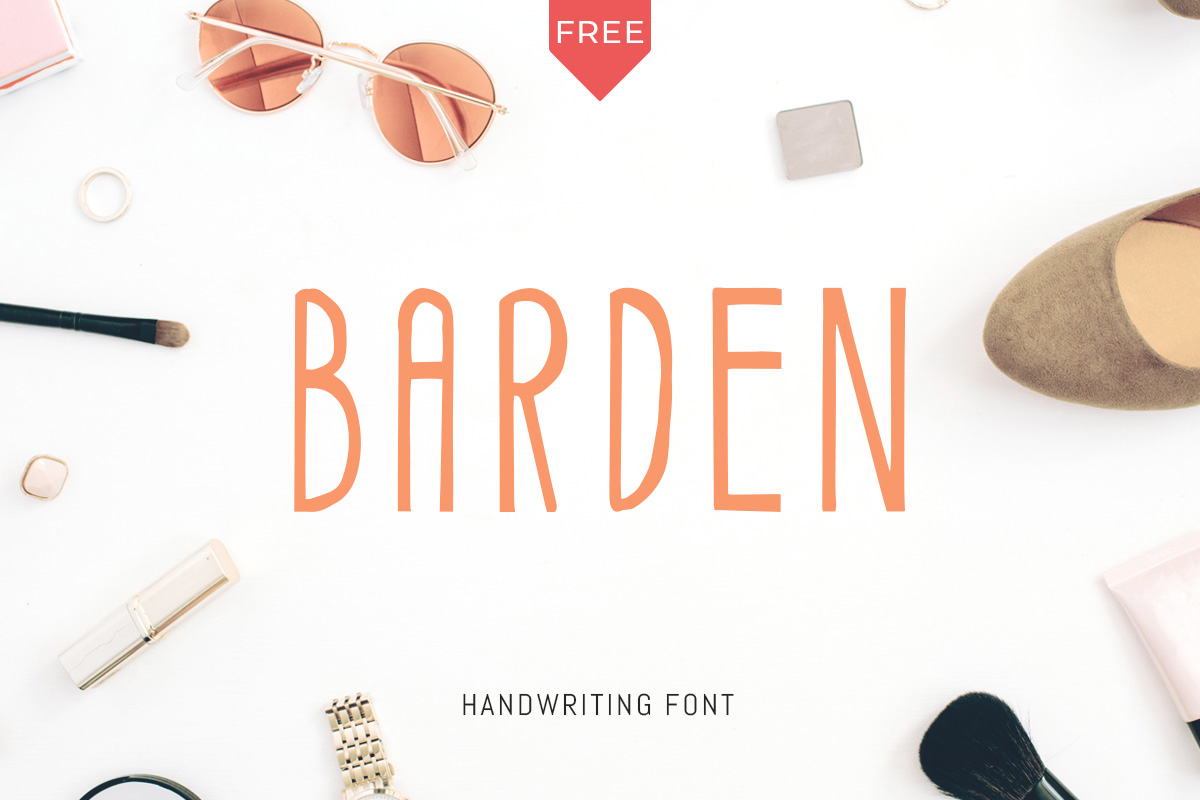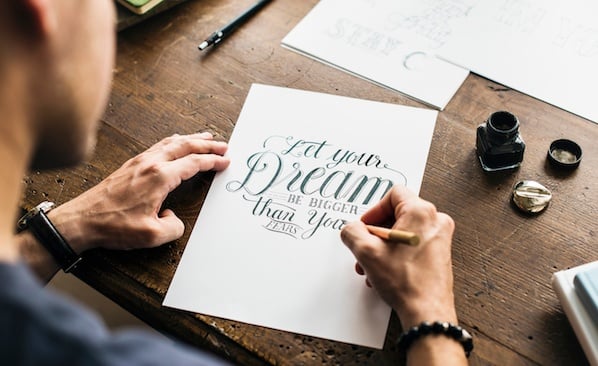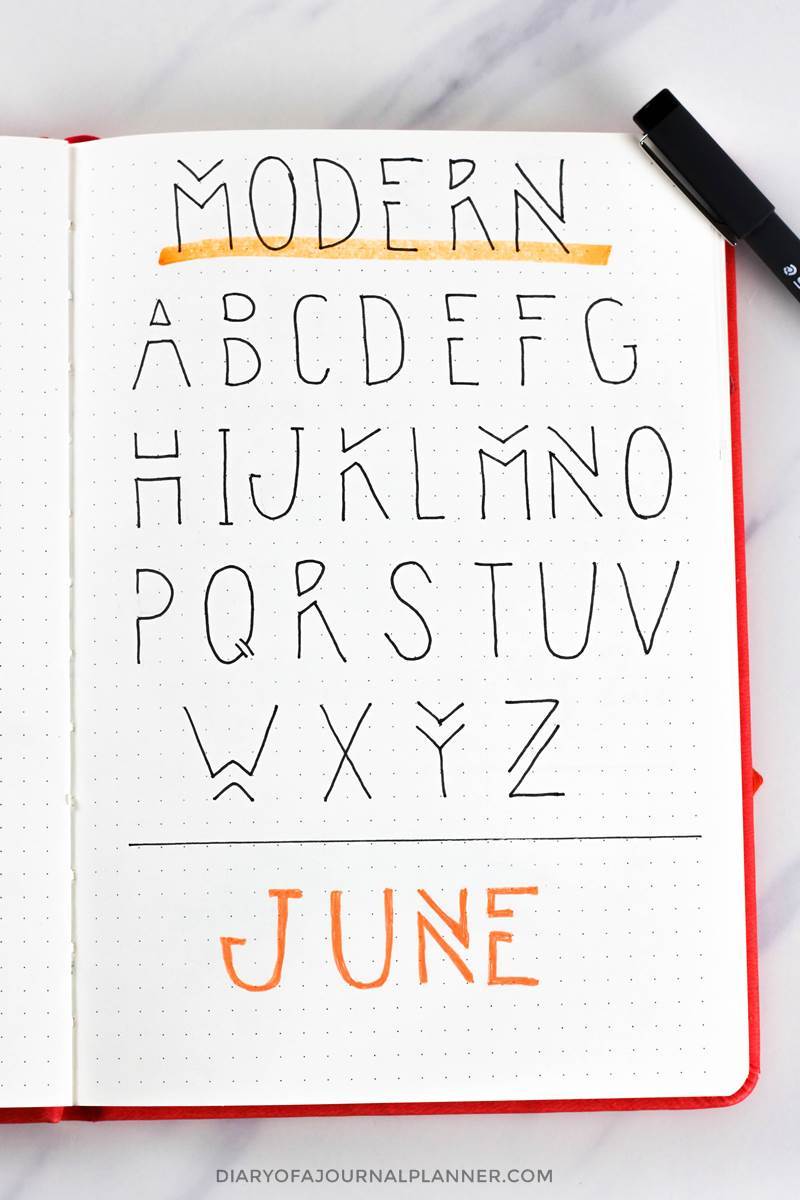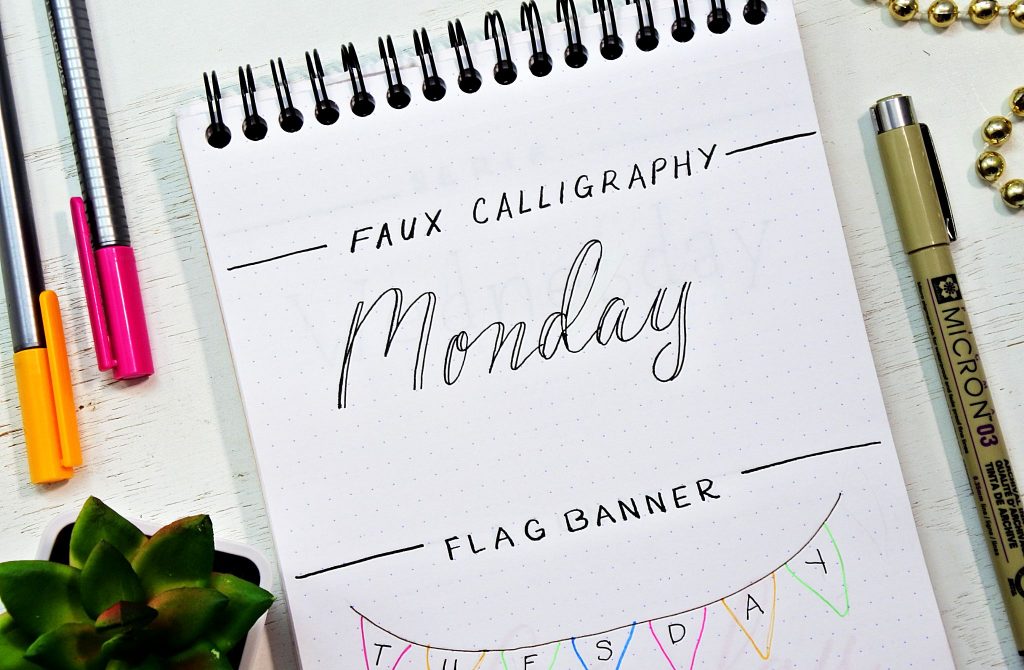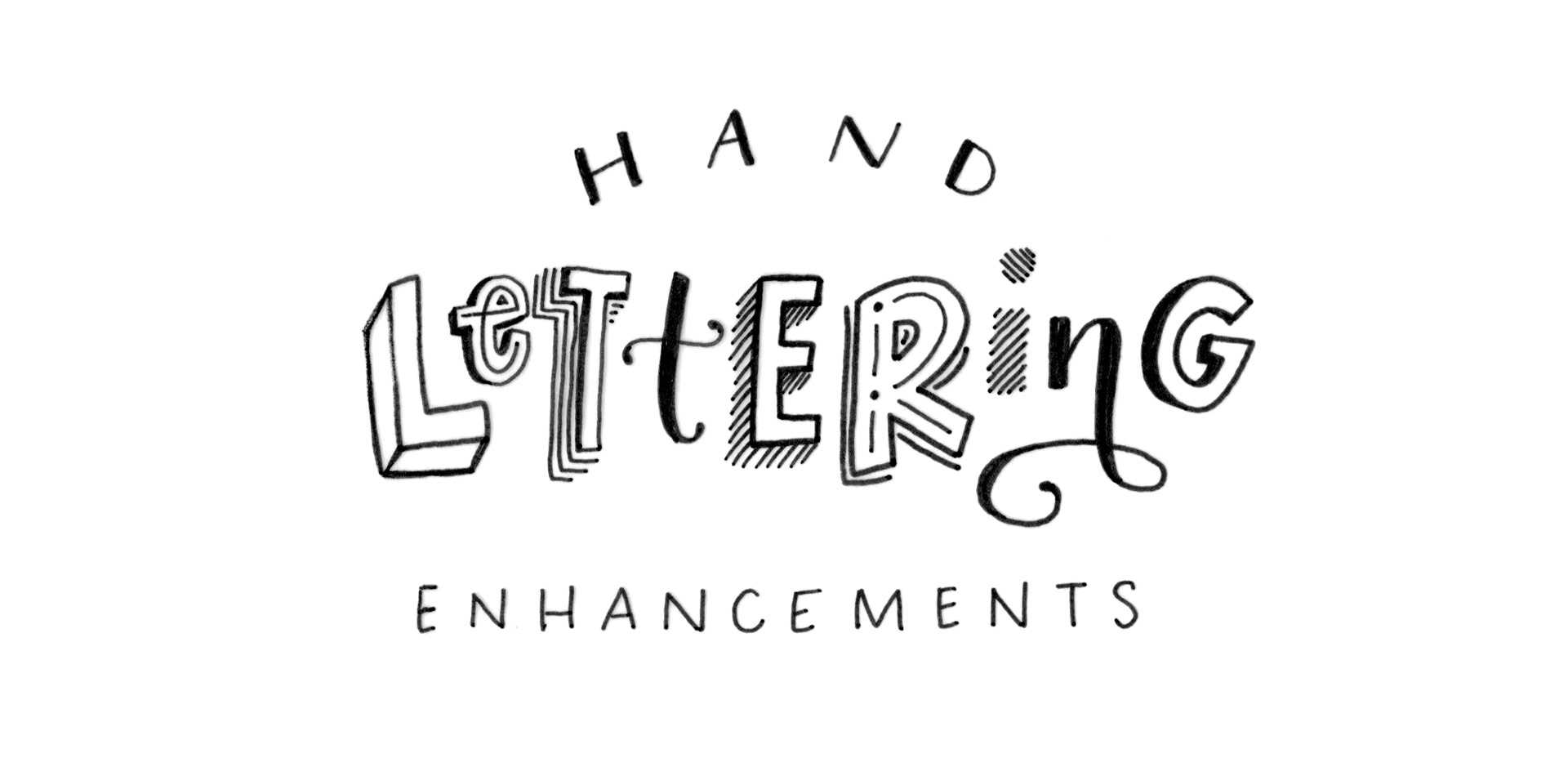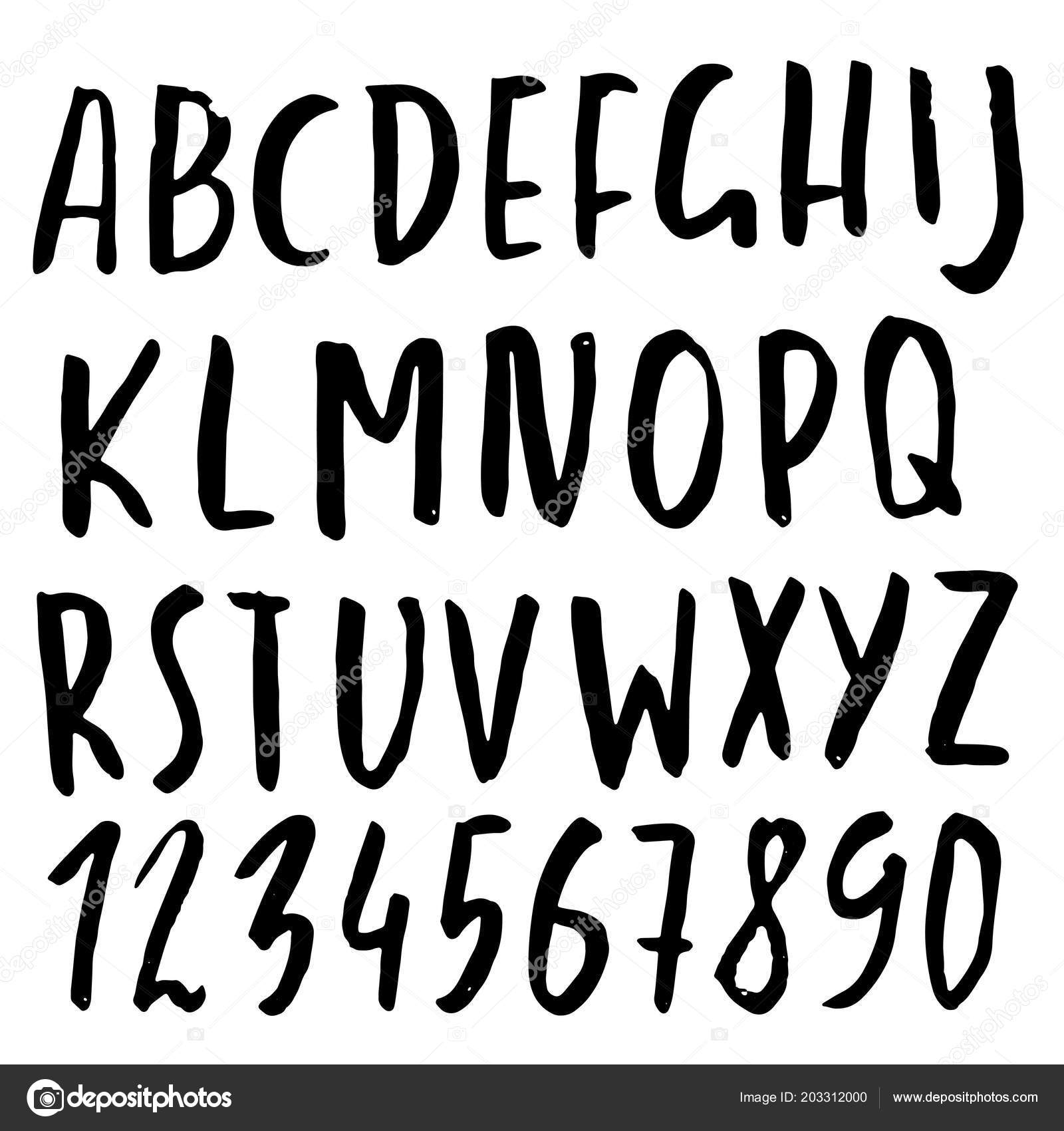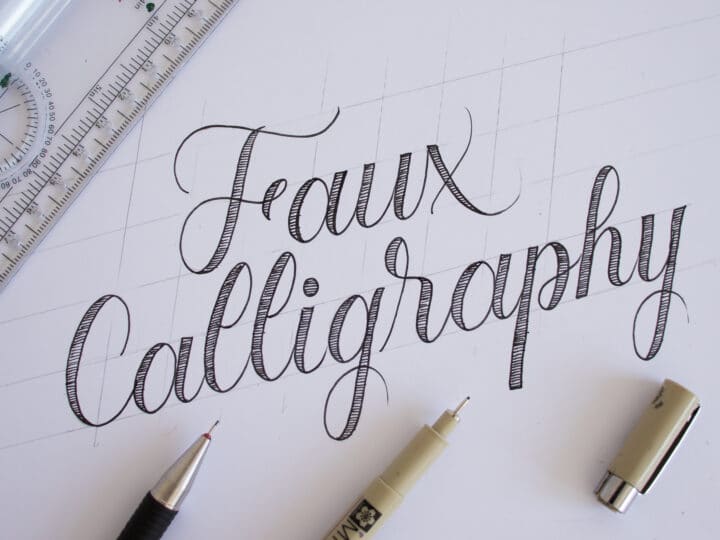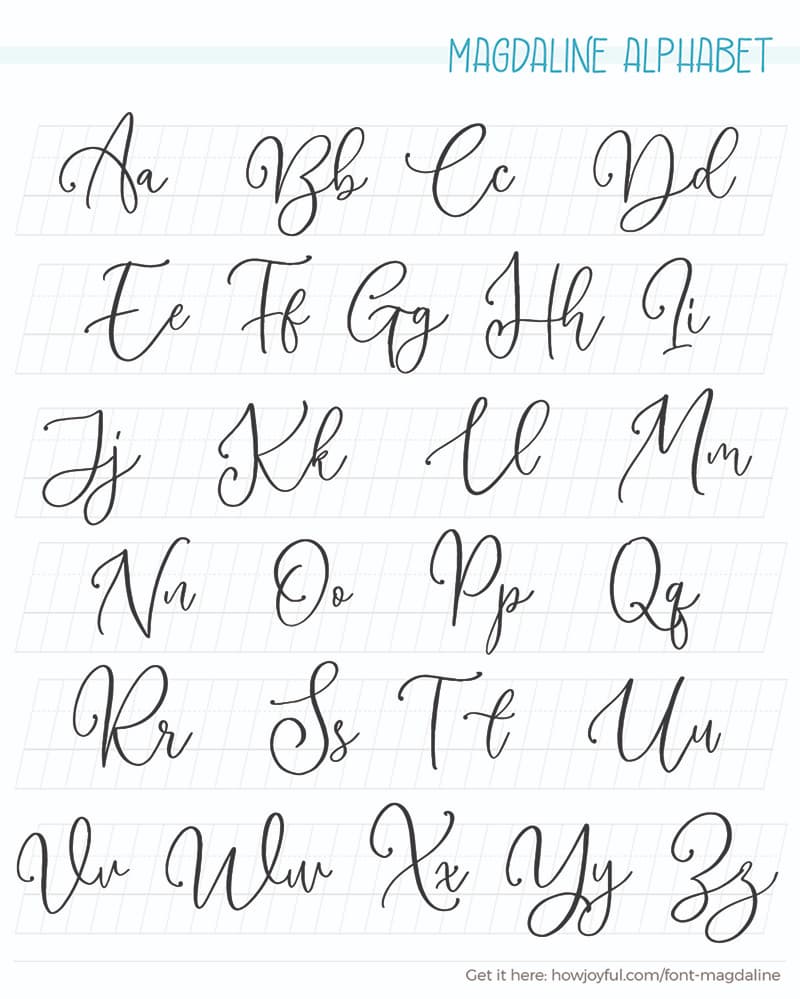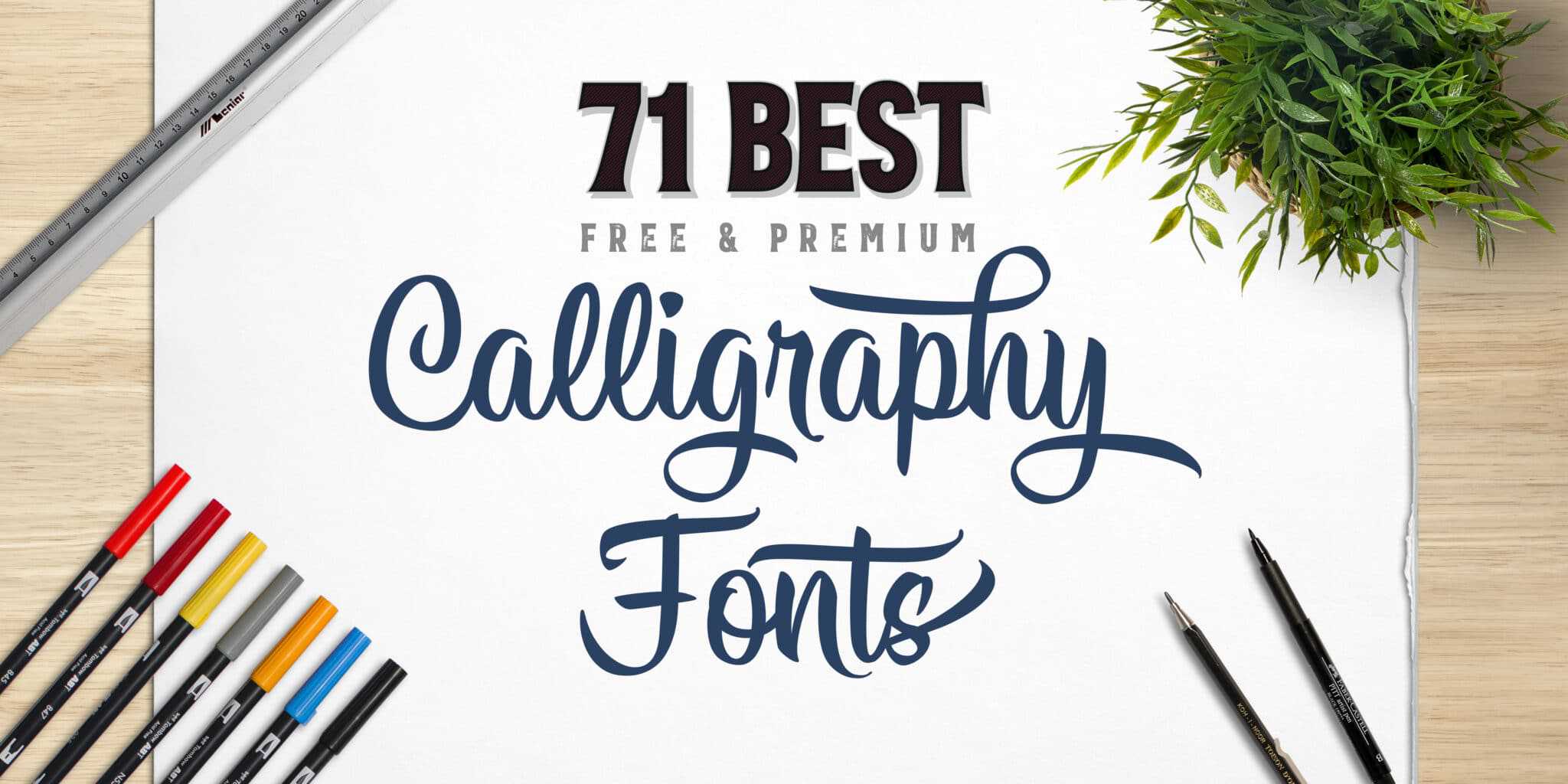
Looks casual like an everyday handwriting made with a thin felt-tip pen or a ballpoint pen. See more ideas about hand lettering writing.
But today all you need is to install a digital font and write whatever you like with pleasure.
Which fonts are available in the lettering generator. 50 hand-drawn fresh contemporary flourishes and ornaments that work with the Outside the Line library of alphabet and doodle fonts. A few decades ago youd have to sweat over neat writing with chalk a lot.
These handwritten fonts are drawn using any kind of writing instrument like pen pencil felt marker brush etc. Beginner Hand Lettering Fonts Alfabeto Completo A Calligraphy Guide for the Beginners All About Fonts and Alphabets 10 Super Easy Hand Lettering Techniques with an Artful Spin Post Kiley in Kentucky Lettering alphabet Lettering styles Top 10 Free Lettering Fonts You Need to Own. The fonts have all been carefully selected and tested by hand.
Spin-off of the Amatic SC font family with wider letter-spacing optimized for Hebrew. Check out the best chalk hand lettering fonts 2020 to come up with creative typography without getting your hands dirty. Add a bit of pretty adornment to cards invitations and gift tags.